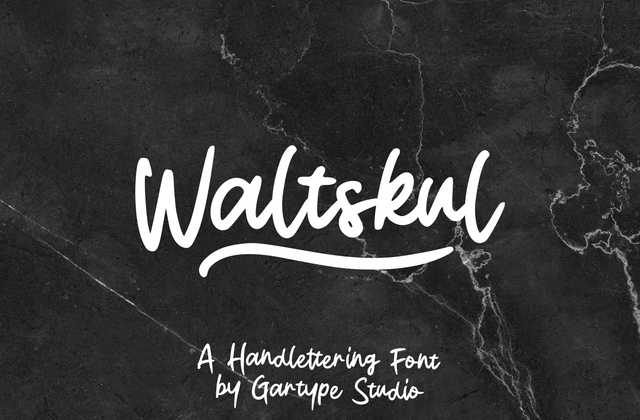
Waltskul Font
Waltskul Font is perfect for creative branding, artistic logos, indie music albums, alternative fashion labels, youth-oriented campaigns, skateboard graphics, street art projects, underground magazines, experimental designs, and contemporary art installations.
What makes Waltskul Font so exciting is its bold experimental character that breaks conventional typography rules while maintaining strong visual impact. This innovative typeface embodies creative freedom and artistic expression, making it the perfect choice for designers who want to push boundaries and create memorable visual statements.
The Waltskul Font family includes regular and bold weights, featuring unique character variations, alternative glyphs, and experimental letterforms that provide endless creative possibilities for unconventional typography design approaches.
The distinctive letterforms of Waltskul Font showcase bold creativity and innovative design thinking that captures attention and sparks curiosity. Each character displays unique personality traits that work together to create cohesive yet unconventional typography that resonates with audiences seeking authentic creative expression. The font's dynamic structure and artistic integrity make it ideal for projects requiring distinctive visual voice and creative authenticity.
Creative agencies and independent designers choose Waltskul Font for projects demanding originality and artistic boldness. The comprehensive character set includes standard letters, numerals, punctuation, and specialty characters that enable designers to create compositions that break free from traditional typography constraints while maintaining professional quality and readability.
The versatile nature of Waltskul Font makes it equally effective across digital and print applications. Whether developing alternative brand identities, creating artistic publications, or designing experimental graphics, this innovative typeface provides the creative foundation for projects that need to stand out and make lasting impressions on discerning audiences.